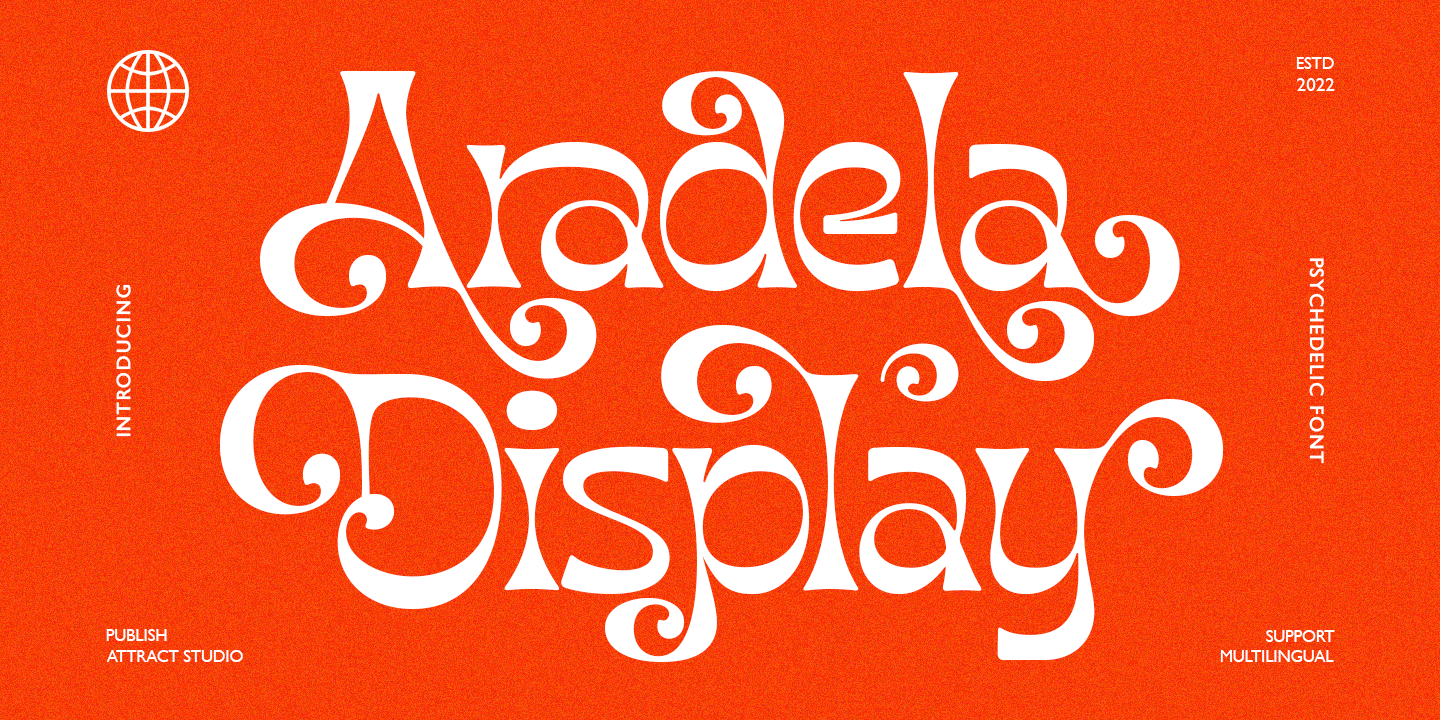
Aradela Display Font is perfect for luxury fashion magazines, high-end cosmetics branding, sophisticated advertising campaigns, premium lifestyle products, elegant event invitations, upscale retail signage, contemporary art exhibitions, and any project requiring typography with graceful display sophistication and refined feminine elegance.
What makes Aradela Display Font exciting is its sophisticated femininity that captures the essence of contemporary elegance and refined beauty with flowing letterforms that embody the perfect balance between strength and grace. This exquisite typeface reflects modern feminine empowerment with elegant curves and confident styling that commands attention while maintaining delicate sophistication. The font's graceful character and contemporary appeal make it perfect for brands celebrating modern femininity, luxury lifestyle, and the confident elegance of today's sophisticated woman.
The Aradela Display Font family includes multiple weights from light to black, featuring complete uppercase and lowercase alphabets, numerals, punctuation marks, and elegant display elements. The font maintains consistent sophisticated elegance throughout all weights while ensuring optimal performance for large-scale applications and providing exceptional visual impact across luxury branding and editorial design platforms.
Whether you're designing for luxury beauty brands, creating sophisticated magazine layouts, or developing premium lifestyle branding with contemporary feminine aesthetics, Aradela Display Font Free Download delivers unmatched elegance and sophisticated charm to your projects. This distinguished typeface transforms ordinary headlines into powerful expressions of modern femininity that celebrate confidence, beauty, and contemporary sophistication. The font's graceful character makes it ideal for fashion houses, beauty companies, and luxury lifestyle brands. Download this exceptional font today and bring the refined elegance of contemporary feminine sophistication to your design projects with authentic grace and modern display excellence.